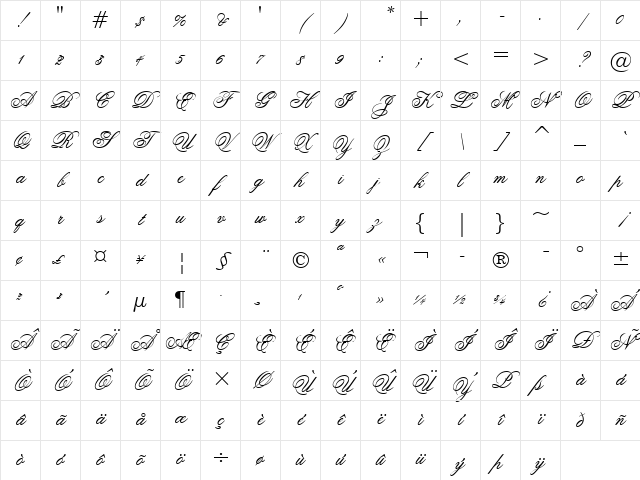
Complete Ouverture script Regular glyph index. Displaying only characters natively supported by Ouverture script Regular font.
Ouverture script flows with the natural rhythm of handwritten lettering, making it ideal for designs that call for warmth and personal expression.
Font Pairing: Combine Ouverture script with a simple geometric sans for maximum contrast - the tension between flowing curves and clean structure is a classic typographic pairing.
Pro Tip: Use Ouverture script for short runs of text - names, titles, or taglines. Extended body copy in script faces tires the eye quickly.